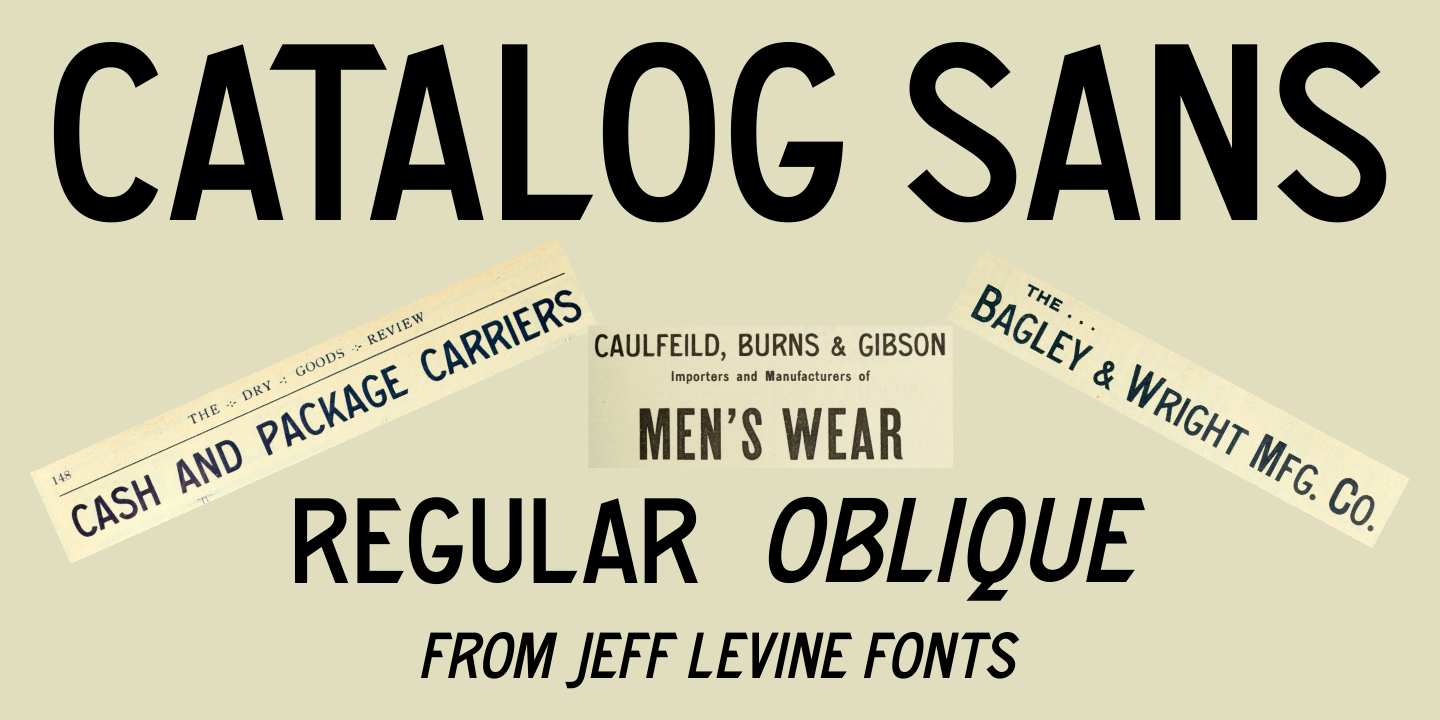
Catalog Sans JNL
Designed by Jeff Levine, Catalog Sans JNL is a display sans font family. This typeface has two styles and was published by Jeff Levine Fonts.
Based on Ronaldson Gothic (named after James Ronaldson; who owned the first type foundry located in the United States), Catalog Sans JNL is a classic Victorian-era Grotesk sans serfif and is available in both regular and oblique versions.